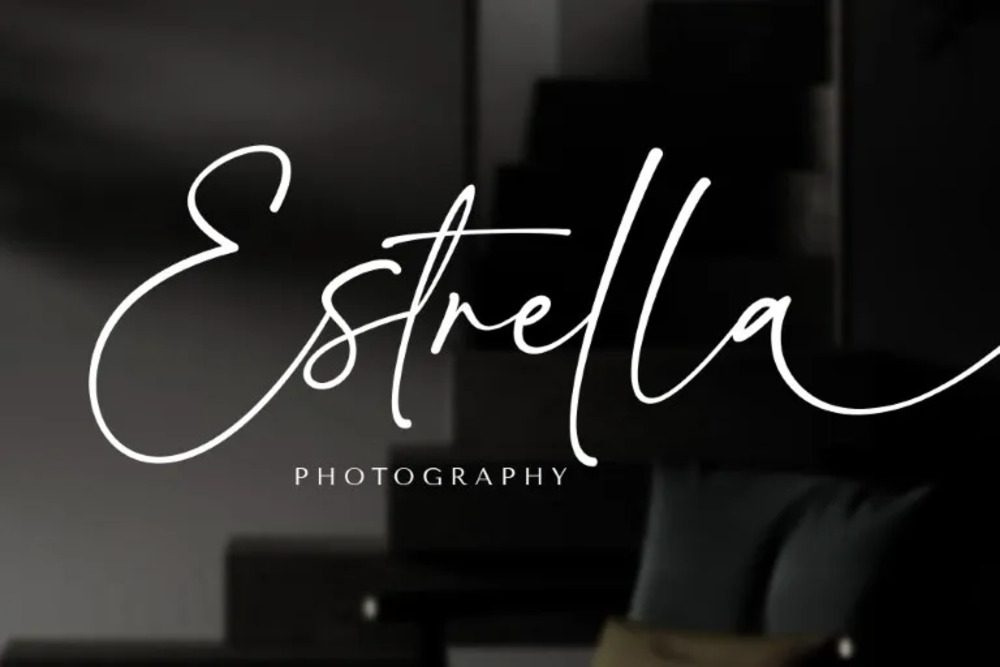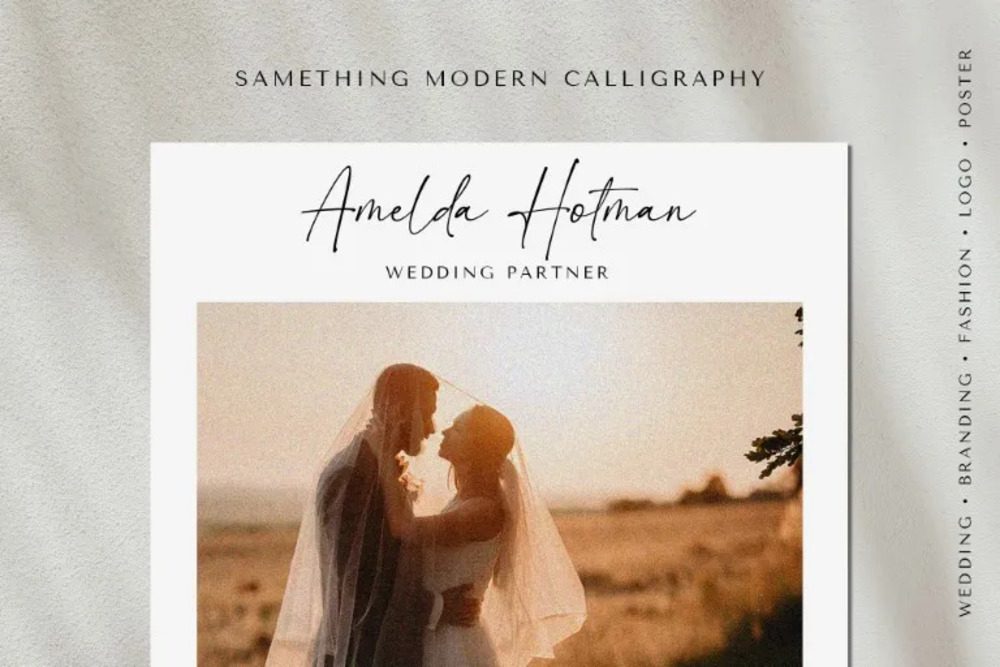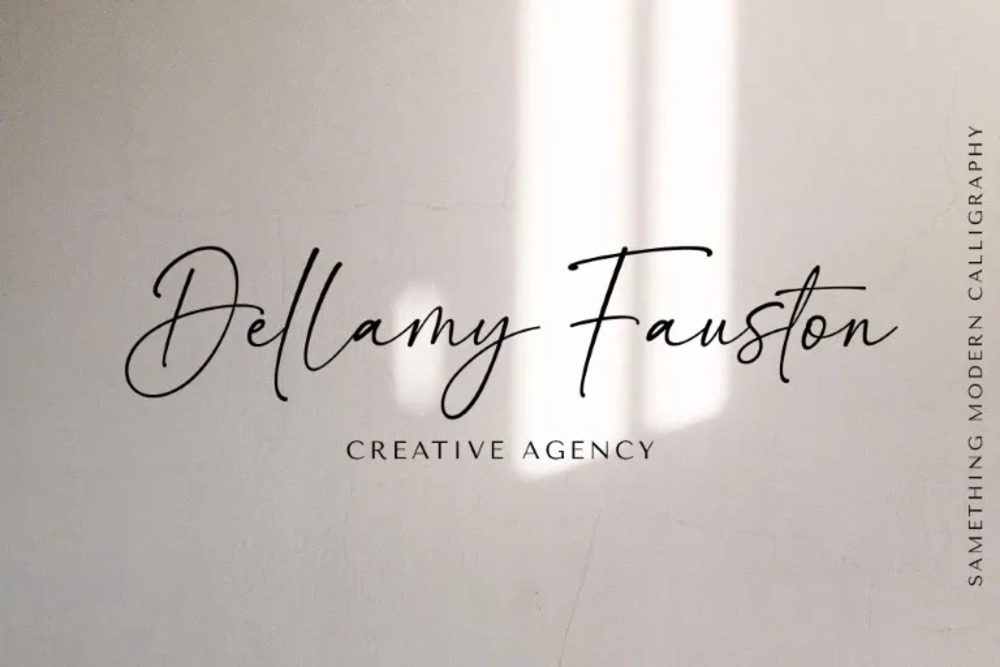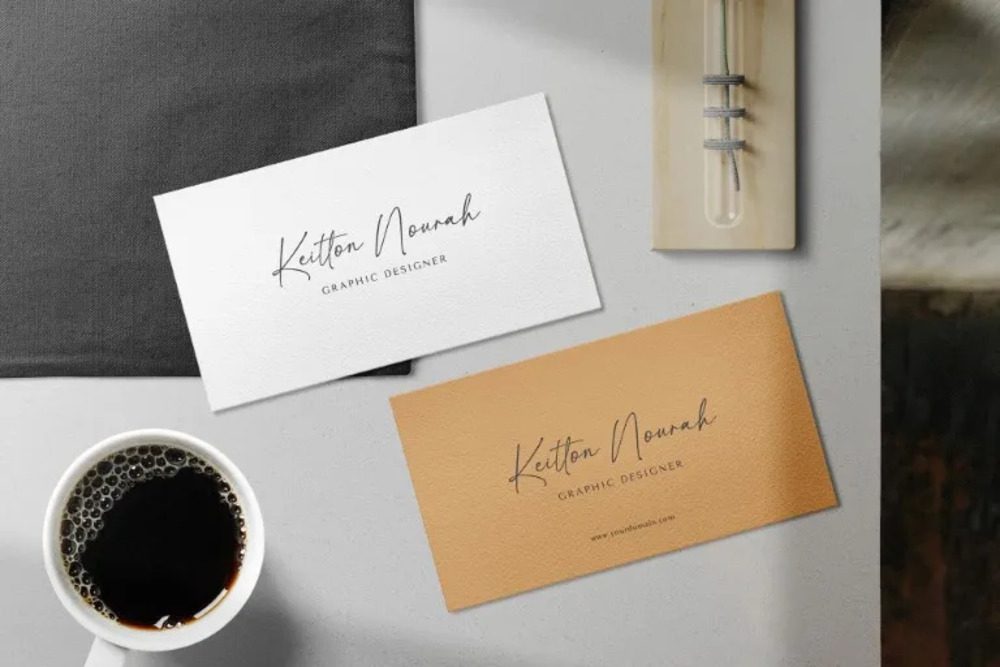
Sharlotte Font
The Sharlotte font is an elegant, calligraphy script characterized by flowing curves, smooth strokes, and an airy, feminine aesthetic. Perfect for invitations, logos, and branding, it conveys sophistication and warmth. Its versatile design adds charm to both casual and formal projects, enhancing creativity while maintaining readability.